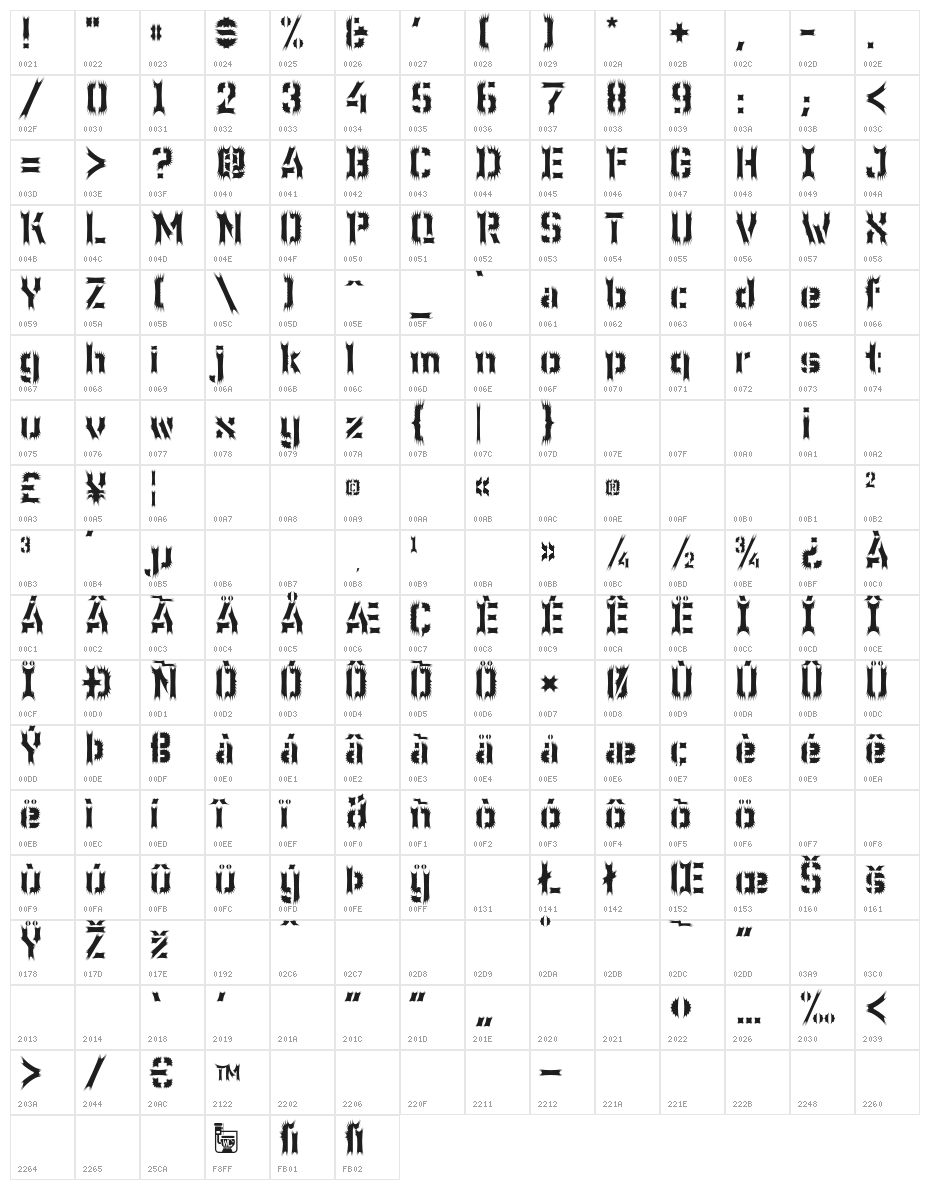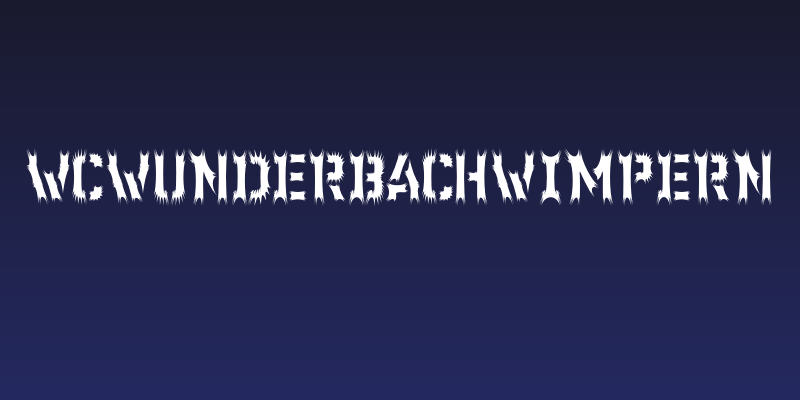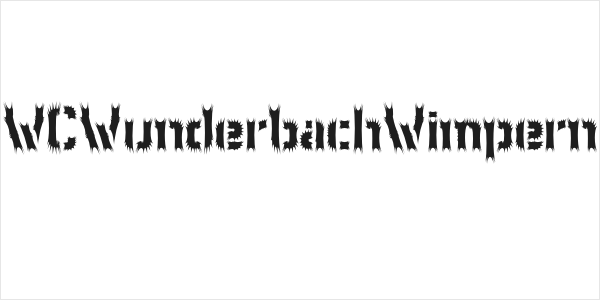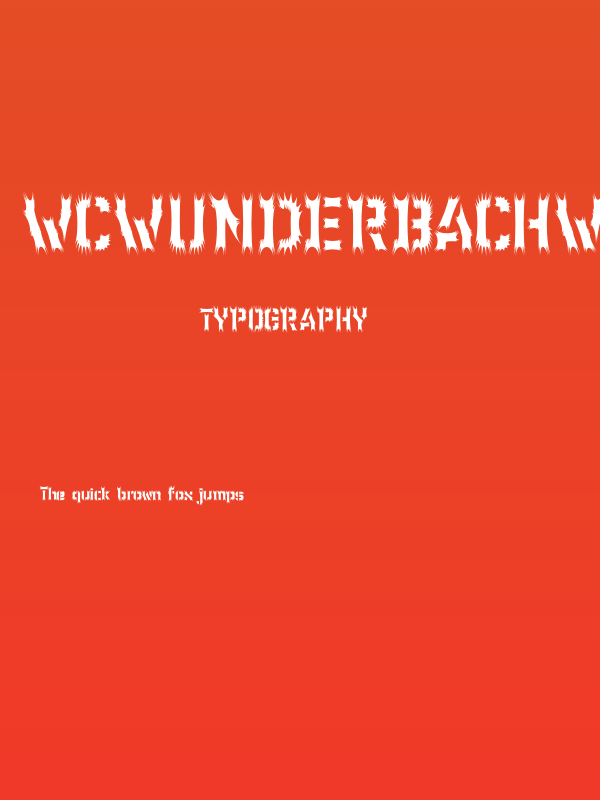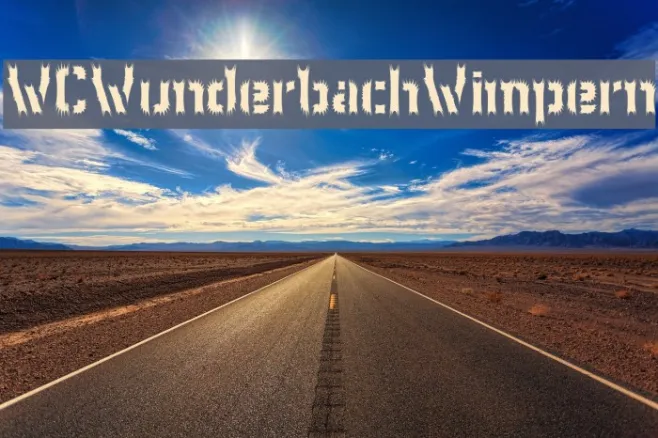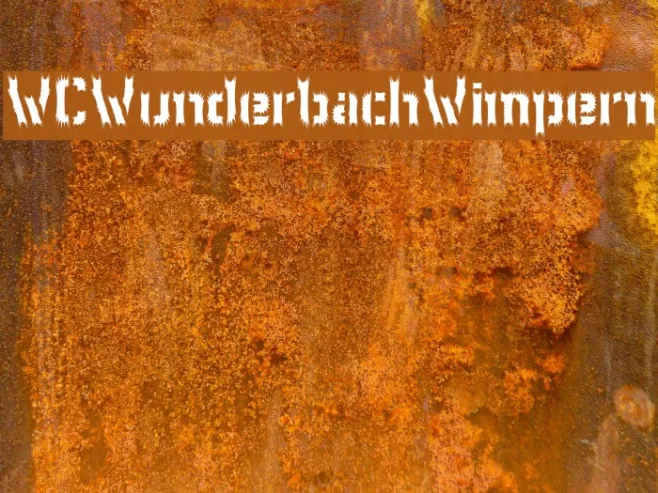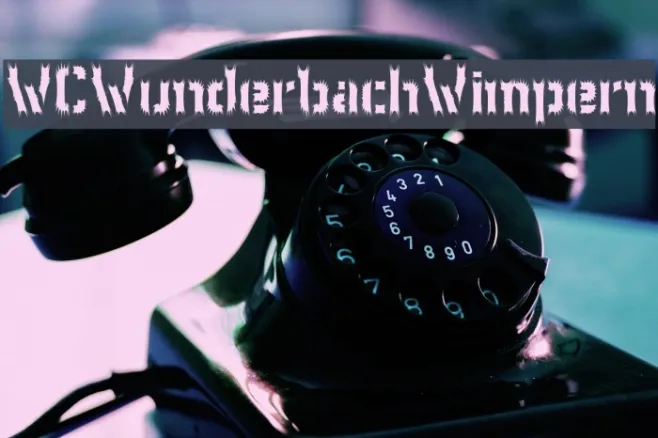
WCWunderbachWimpern Font
WCWunderbachWimpern Description
This font features a highly decorative and edgy style, characterized by sharp, jagged edges that give each character a dynamic and aggressive appearance. The uppercase and lowercase letters maintain a consistent theme, with bold strokes and intricate details that create a sense of movement and intensity. The numbers and special characters follow the same design principles, ensuring a cohesive look throughout. This font's unique aesthetic makes it stand out, offering a visually striking option for creative projects.
| Proposed Projects | Ideal for use in horror-themed designs, edgy branding, album covers, and poster art where a dramatic impact is desired. |